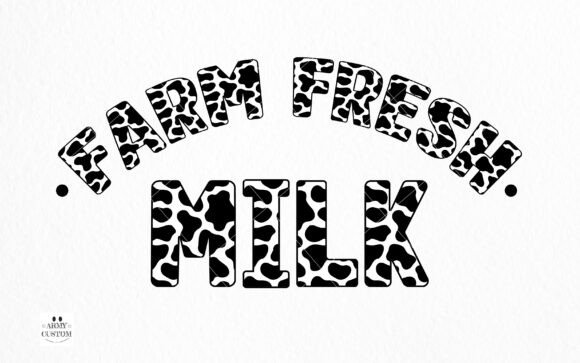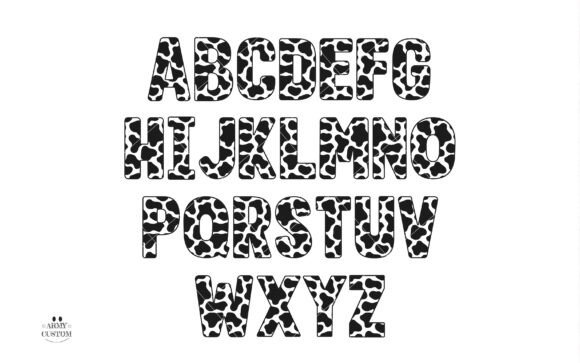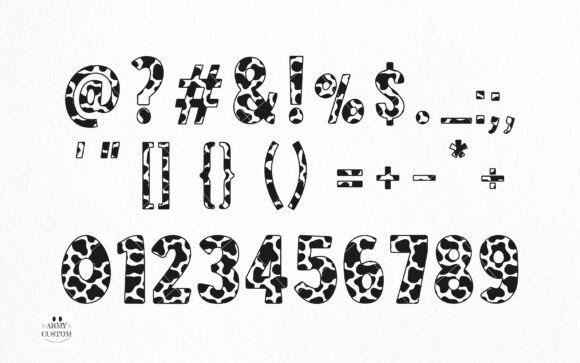
Cow Farm Font: Unleash a Splash of Merriment in Your Designs
Are you tired of using the same old fonts in your designs? Look no further than Cow Farm, an exuberant cow-print color font that’s sure to bring a smile to your face. With its welcoming and whimsical charm, this artistic typeface is the perfect way to add a touch of playfulness to any project. In this article, we’ll take a closer look at the Cow Farm font and explore its features, benefits, and uses.
A Font that’s Full of Life
Cow Farm is more than just a font – it’s an experience. Its intricately designed cow-print pattern is sure to delight designers and crafters of all ages. The font’s exuberant and whimsical charm makes it perfect for projects that require a touch of humor and personality. Whether you’re working on a children’s book, a greeting card, or a social media post, Cow Farm is sure to bring a splash of merriment to your designs.
One of the best things about Cow Farm is its versatility. This font can be used in virtually any design, from digital projects to print materials. Its playful and celebratory vibe makes it perfect for a wide range of applications, including:
- Children’s books and educational materials
A Playful Ride on an Artistic Roller Coaster
Cow Farm is not just a font – it’s a journey. Its intricately designed pattern is like a roller coaster ride of imagination and celebration. With every stroke, you’ll feel like you’re creating something truly special and unique. The font’s playful and whimsical charm is sure to inspire your creativity and bring a sense of joy to your designs.
So, what makes Cow Farm so special? Here are just a few of its key features and benefits:
- Exuberant and whimsical charm: Cow Farm has a playful and celebratory vibe that’s sure to delight designers and crafters of all ages.
- Versatility: This font can be used in virtually any design, from digital projects to print materials.
- Intricate design: Cow Farm’s cow-print pattern is intricately designed, making it a true standout in any design.
- Color font: Cow Farm is a color font, which means you can use it to add an extra pop of color to your designs.
How to Use Cow Farm in Your Designs
Using Cow Farm in your designs is easy. Here are a few tips to get you started:
- Pair it with a neutral font: Cow Farm is a bold and playful font, so it’s best to pair it with a neutral font to balance it out.
- Use it for headings and titles: Cow Farm is perfect for headings and titles, where its playful and celebratory vibe can really shine.
- Experiment with colors: Cow Farm is a color font, so don’t be afraid to experiment with different colors and combinations.
In conclusion, Cow Farm is a font that’s sure to bring a splash of merriment to your designs. Its exuberant and whimsical charm, versatility, and intricate design make it a true standout in the world of typography. Whether you’re a designer, crafter, or just someone who loves to have fun, Cow Farm is the perfect way to add a touch of playfulness to any project. So why not give it a try and see what kind of creative and imaginative designs you can come up with?